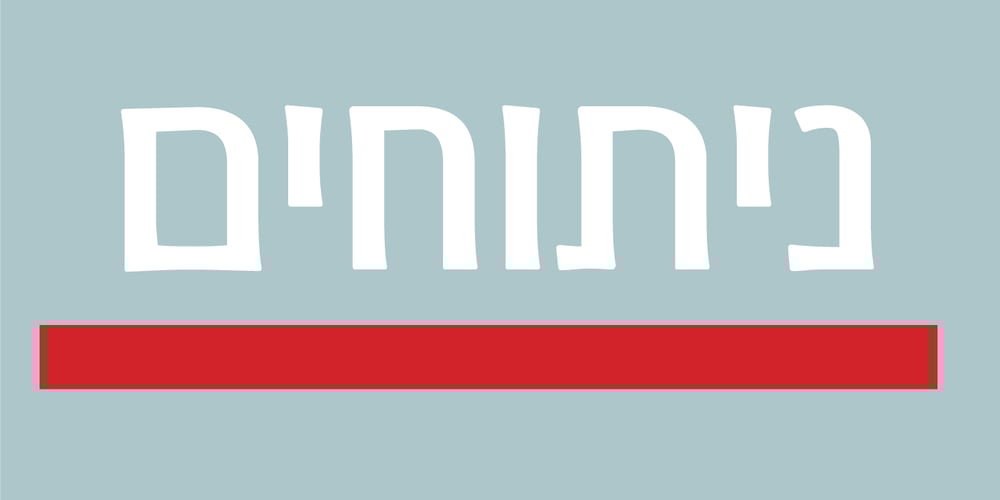
Liana MF Font Family was designed by Daniel Levy and published by Masterfont. Liana MF contains 3 styles and family package options. Elegant font family of 4 weights, serves as headlines as well as body text. Curved edges add the special tender look to any text.